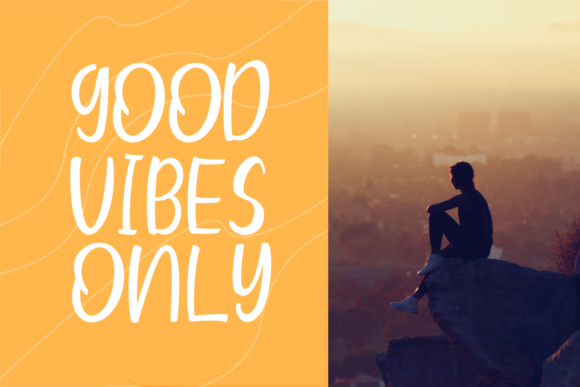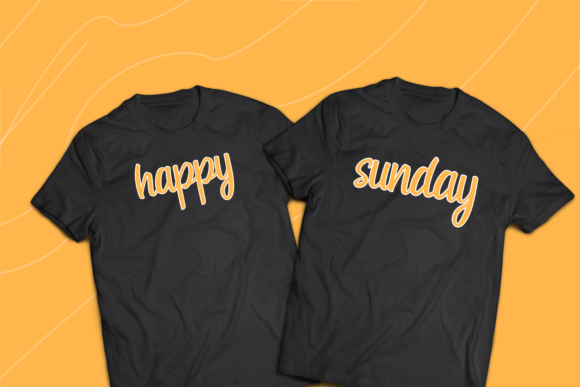
Hey Yours Font
db-ku.com - Script & Handwritten -- Hey Yours is a fun and cute script with an authentic feel. Use it to add a down-to-earth feel to any arts & crafts project!